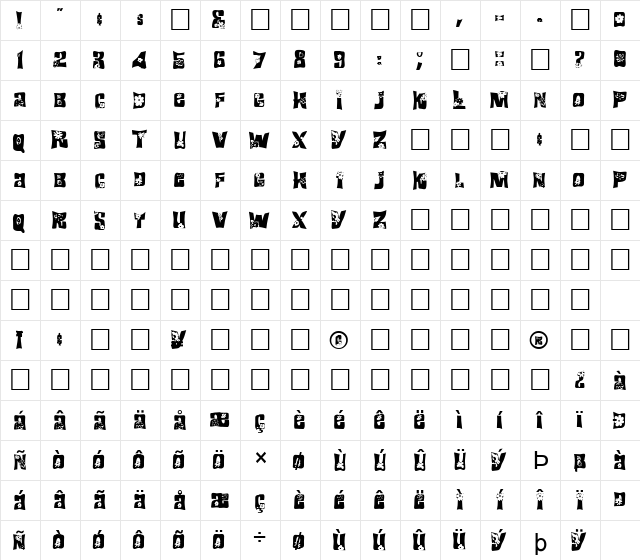
FZ WARPED 19 Normal
Design Context for FZ WARPED 19 Typeface
FZ WARPED 19 is a composed and adaptable typeface that performs quietly and consistently across a wide range of design contexts.